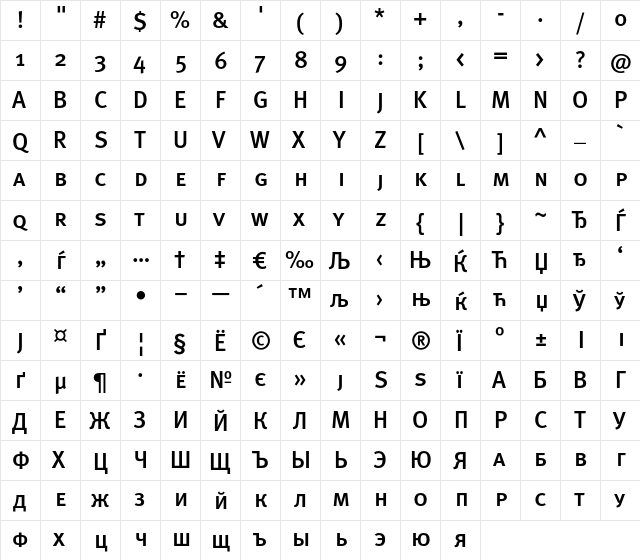
MetaMediumCyr-Caps Regular Font Preview
MetaMediumCyr-Caps Regular
MetaMediumCyr-Caps Regular Font Details
Design Context for MetaMediumCyr-Caps Typeface
MetaMediumCyr-Caps takes a measured approach to typography — its balanced proportions and neutral character make it a reliable workhorse for both digital and print work.